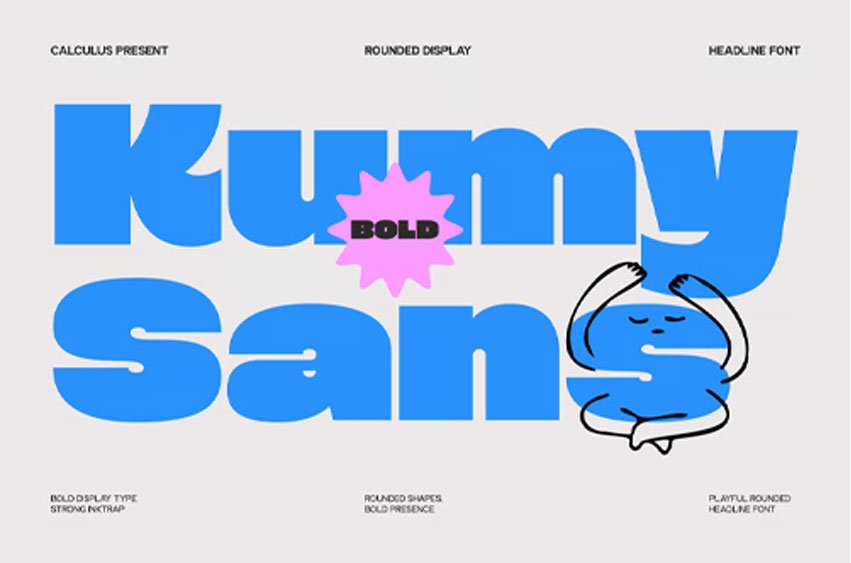
Kumy Sans Font Display Sans is a bold rounded display typeface designed to bring a strong yet playful visual presence. With its soft curves, thick strokes, and friendly structure, Kumy creates a unique balance between confident impact and approachable character.
Built with rounded shapes and smooth contours—as clearly seen in its bubbly letterforms—CC Kumy delivers a warm and expressive typographic voice. Its bold construction ensures high visibility, while the playful geometry adds a sense of personality, making it perfect for eye-catching headline designs.
Designed for modern visual needs,** CC Kumy** – Display Sans performs exceptionally well in branding, posters, editorial headlines, packaging, and digital interfaces. The font’s rounded display style allows it to stand out in large-scale compositions while maintaining clarity and readability.
The combination of strong inktrap-inspired structure, bold presence, and soft rounded forms makes Kumy ideal for creative projects that aim to feel modern, fun, and visually engaging without losing professionalism.
Features :
- Bold Rounded Display Style
- Playful and Friendly Character
- Strong Visual Presence
- Smooth Curves & Rounded Shapes
- Clean Contemporary Construction
- Ideal for Headlines & Large Typography
- Suitable for Branding, Poster, Logo, Packaging
- Optimized for Print and Digital Design
- Distinctive and Expressive Appearance
CC Kumy delivers bold softness — a playful rounded typeface designed to make your visuals feel strong, modern, and full of character.